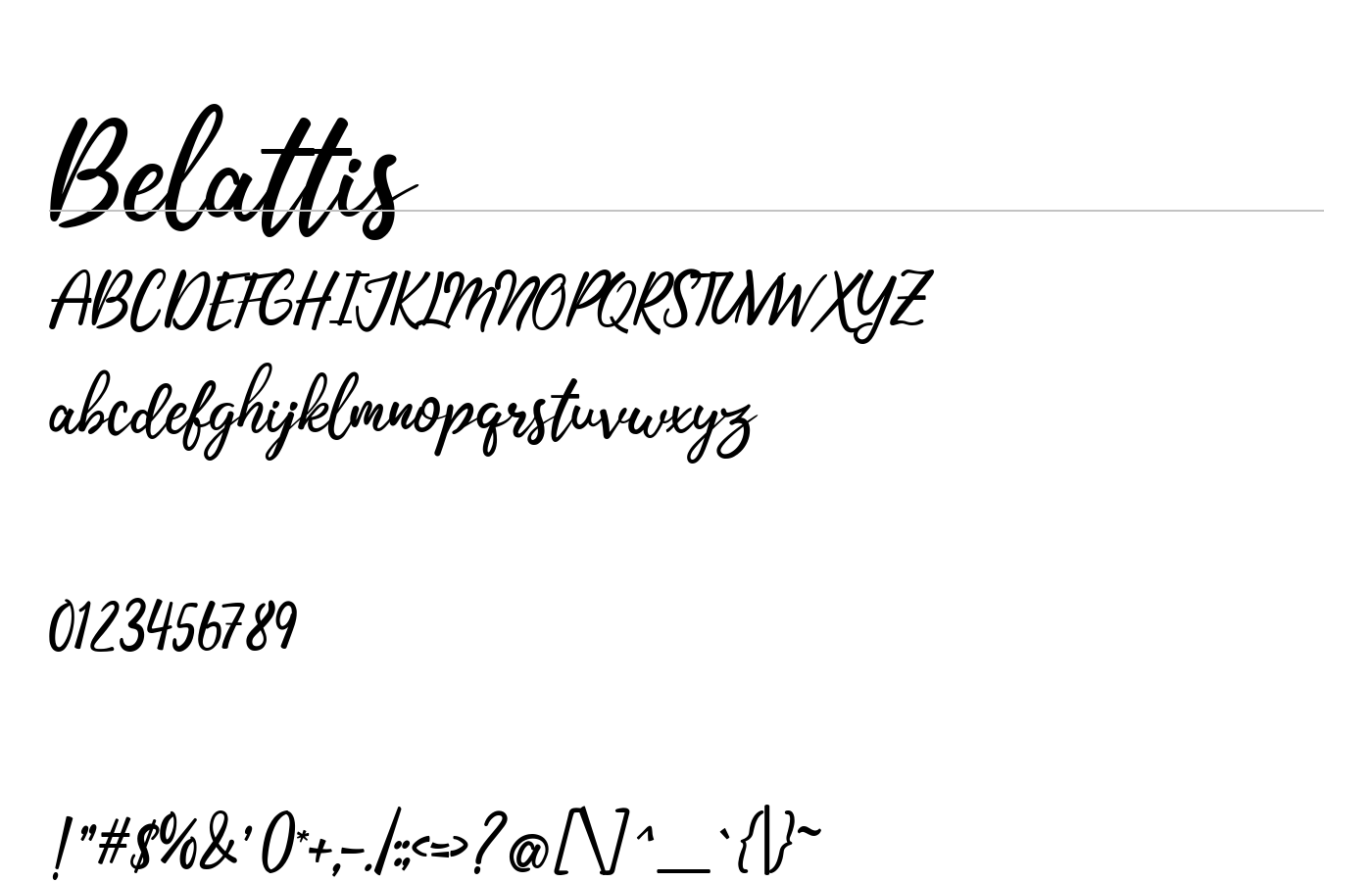
Belattis is a stylish and elegant script font with a smooth, handwritten flow that brings a personal and creative touch to any design. Its slender, slightly condensed letterforms with gentle curves and consistent stroke weight make it perfect for adding a sophisticated yet approachable feel, ideal for branding, invitations, and expressive headlines. This font shines in projects that need a modern, graceful aesthetic without sacrificing readability.
Belattis Font